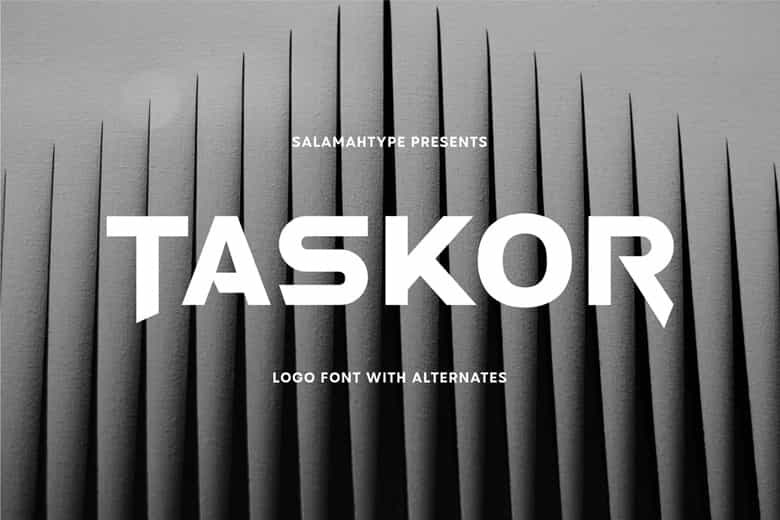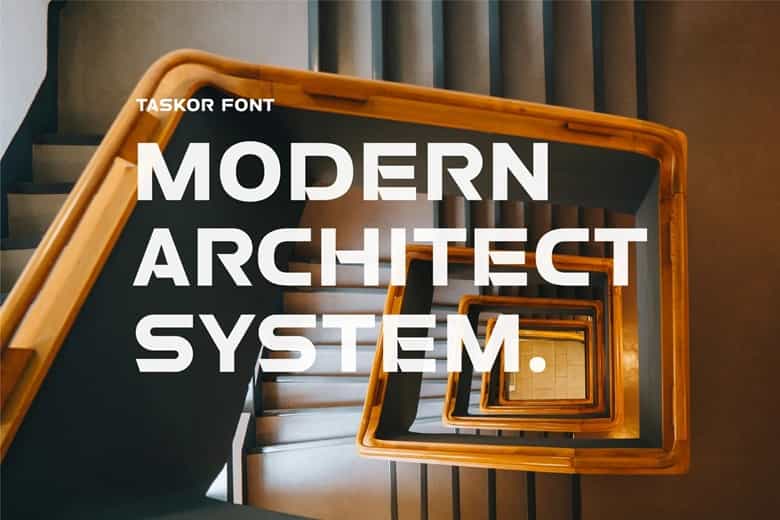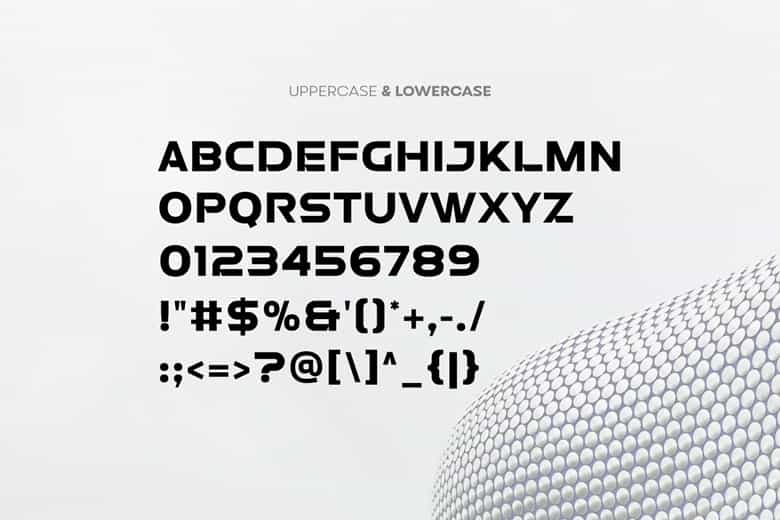
Taskor is a special all caps designed with a Nice geometrical touch to use on logos, branding and futuristic design themes. Its solid-but-clean letters give a vibrant presence to what you are creating without being fancy. Taskor also has alternatives to enable flexibility and creativity in the designing process.